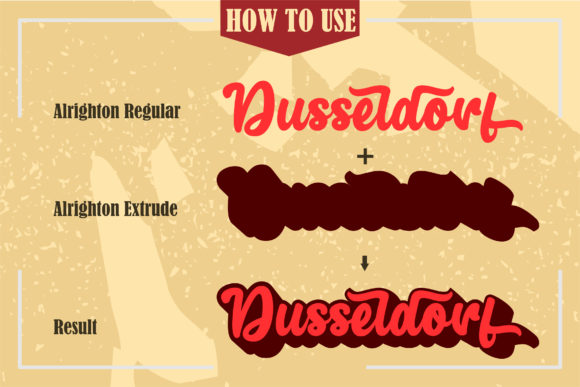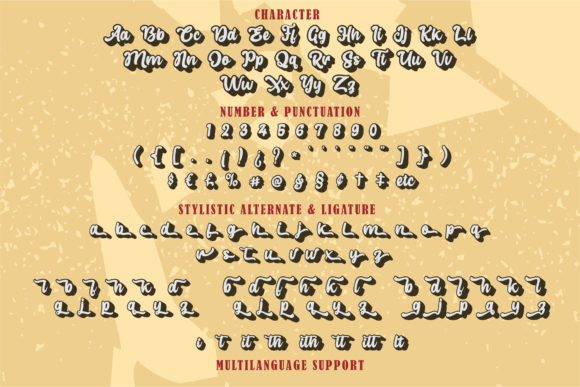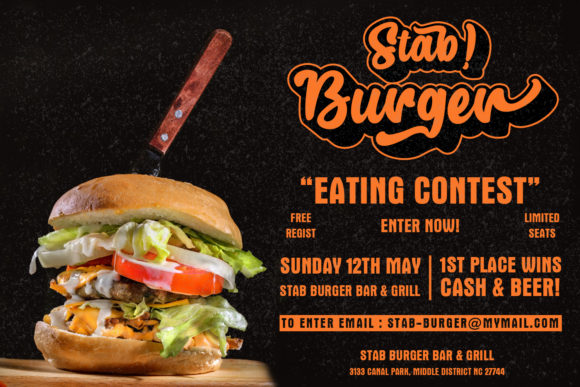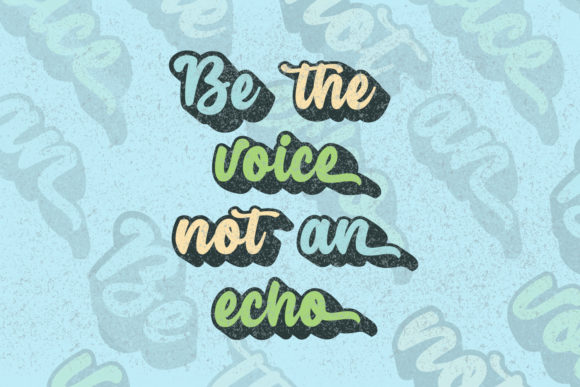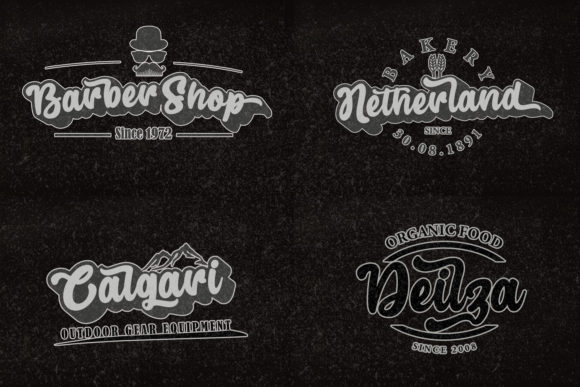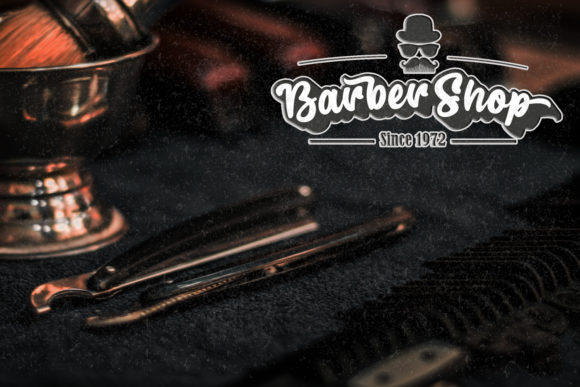
Introducing Alrighton Font: The Perfect Blend of Retro Style and Bold Handwritten Flair
Are you tired of using the same old fonts for your design projects? Look no further than Alrighton Font, a stunning, retro-styled, and bold handwritten font that’s sure to add a stylish touch to your headlines and logotype projects. With its strong, confident, and dynamic appearance, Alrighton Font is the perfect choice for designers and crafters looking to add a nostalgic character to their designs.
What Makes Alrighton Font So Special?
Alrighton Font is a gorgeous, one-of-a-kind font that’s been carefully crafted to bring a touch of nostalgia and sophistication to your designs. Its bold, handwritten style reads as strong, confident, and dynamic, making it perfect for use in headlines, logotypes, and other high-impact design projects. Whether you’re working on a branding project, creating a poster or flyer, or designing a website, Alrighton Font is sure to make a statement.
Key Features of Alrighton Font
- Retro Style: Alrighton Font boasts a classic, retro style that’s reminiscent of the past. Its bold, handwritten appearance is sure to evoke feelings of nostalgia and sophistication.
- Bold and Confident: With its strong, confident appearance, Alrighton Font is perfect for use in high-impact design projects where you want to make a statement.
- Dynamic and Versatile: Alrighton Font is incredibly versatile and can be used in a wide range of design projects, from branding and advertising to packaging and web design.
- Nostalgic Character: Alrighton Font has a unique, nostalgic character that’s sure to add a touch of personality to your designs.
How to Use Alrighton Font in Your Design Projects
Alrighton Font is incredibly easy to use and can be incorporated into your design projects in a variety of ways. Here are a few ideas to get you started:
- Headlines and Logotypes: Use Alrighton Font to create bold, eye-catching headlines and logotypes that are sure to grab attention.
- Branding and Advertising: Alrighton Font is perfect for use in branding and advertising projects where you want to create a strong, memorable impression.
- Packaging Design: Add a touch of nostalgia and sophistication to your packaging designs with Alrighton Font.
- Web Design: Use Alrighton Font to create bold, eye-catching headings and titles for your website or blog.
Tips and Tricks for Getting the Most Out of Alrighton Font
Here are a few tips and tricks to help you get the most out of Alrighton Font:
- Experiment with Different Colors: Alrighton Font looks great in a variety of colors, so don’t be afraid to experiment and find the perfect hue for your design.
- Play with Font Sizes: Alrighton Font is bold and confident, so try using it in different font sizes to create visual interest and hierarchy.
- Combine with Other Fonts: Alrighton Font pairs well with a variety of other fonts, so try combining it with other fonts to create a unique and eye-catching design.
Alrighton Font is a stunning, retro-styled, and bold handwritten font that’s perfect for designers and crafters looking to add a stylish touch to their design projects. With its strong, confident, and dynamic appearance, Alrighton Font is sure to make a statement in any design project. Whether you’re working on a branding project, creating a poster or flyer, or designing a website, Alrighton Font is the perfect choice. So why wait? Download Alrighton Font today and start creating stunning designs that are sure to impress!